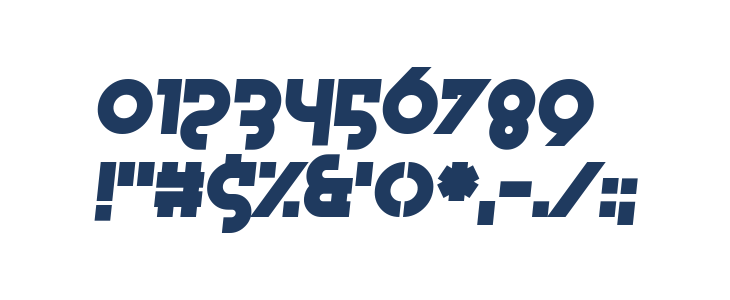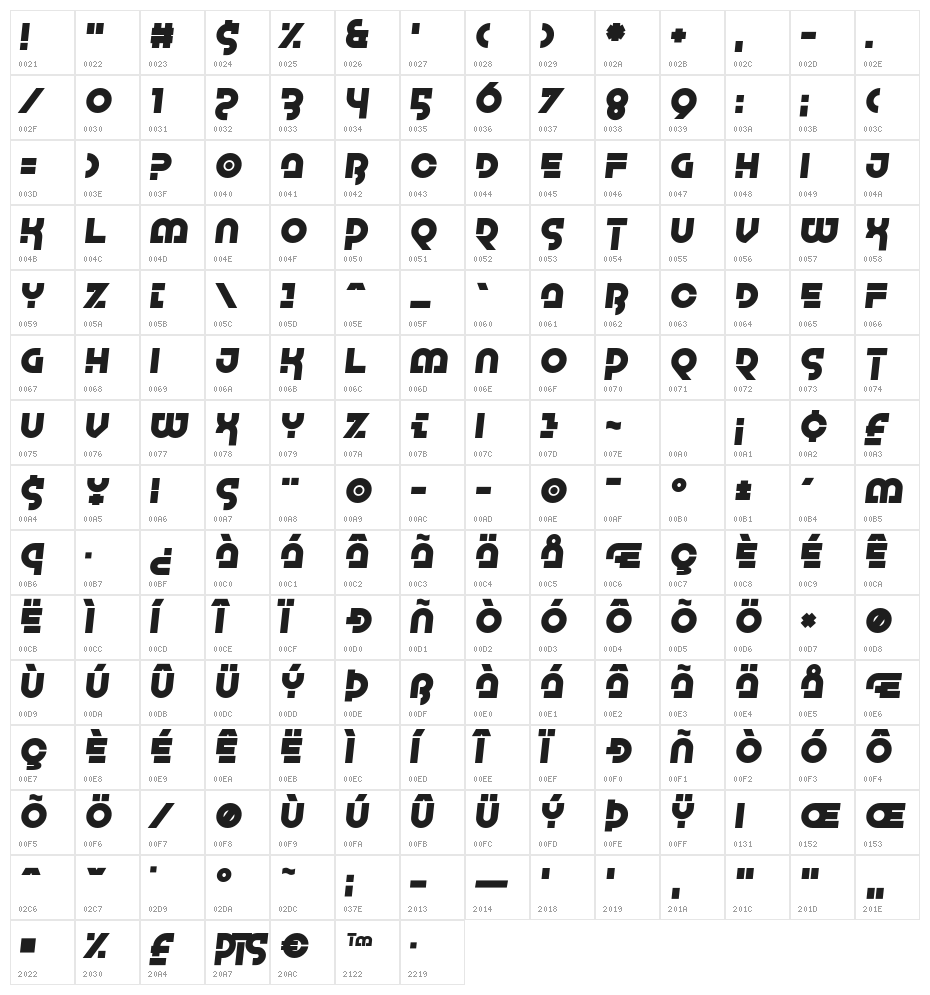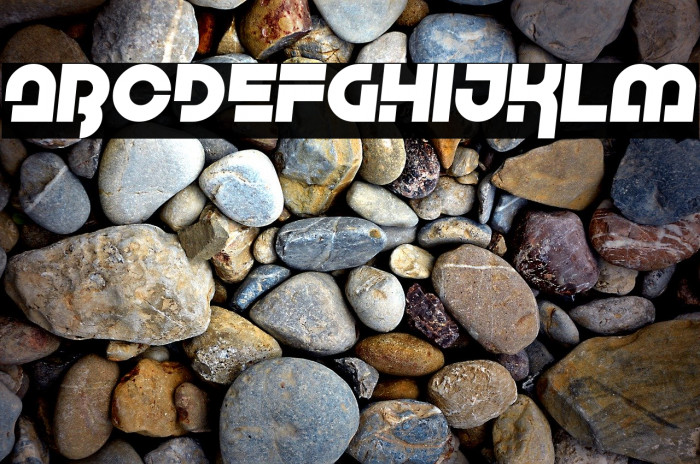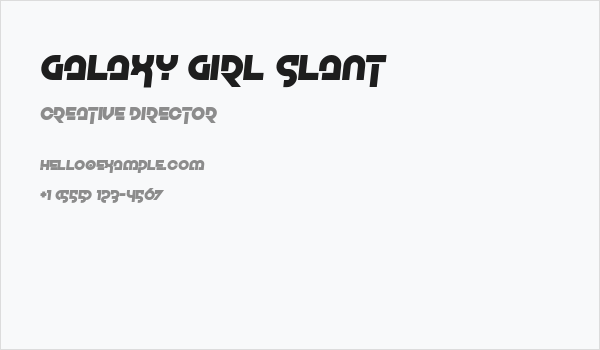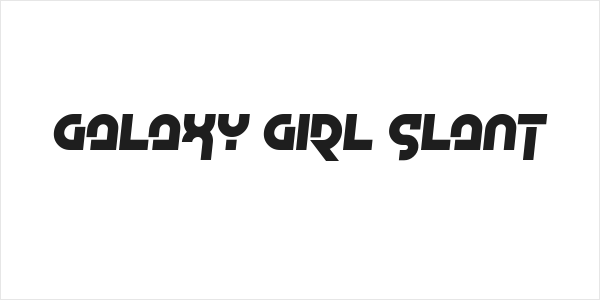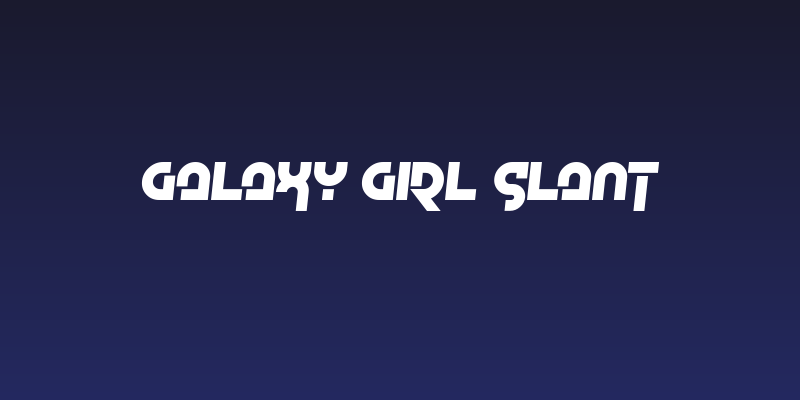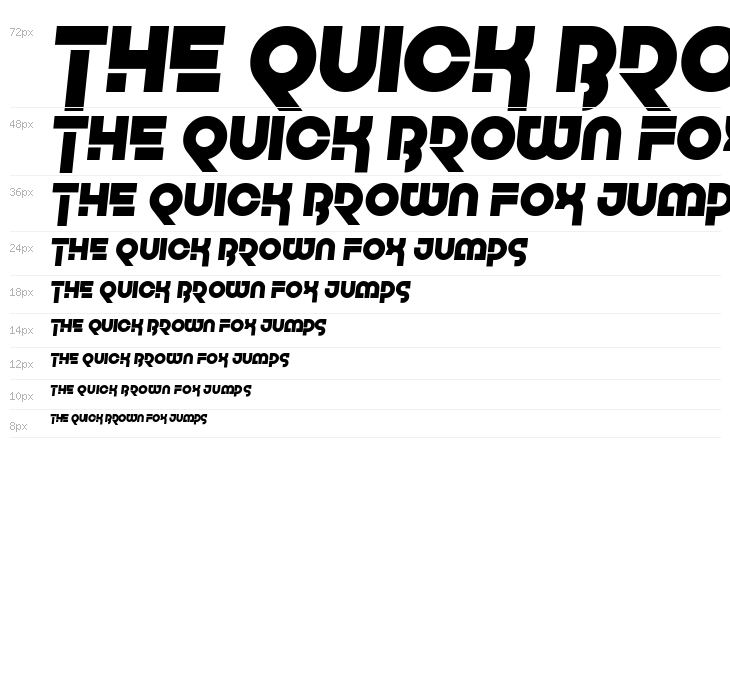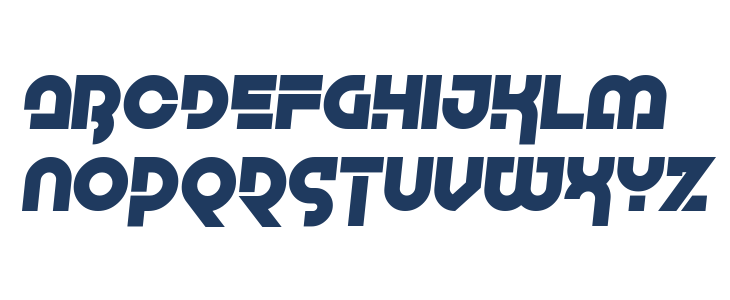
Galaxy Girl Slant Font
Galaxy Girl Slant Description
This font features a bold, futuristic design with a distinct slant, giving it a dynamic and energetic appearance. The characters are crafted with geometric precision, incorporating sharp angles and clean lines that contribute to its modern aesthetic. The uppercase and lowercase letters maintain a consistent style, ensuring readability while adding a unique flair. Numbers and special characters are designed to match the overall theme, making them suitable for a variety of creative applications. The font's bold weight and condensed width enhance its impact, making it ideal for attention-grabbing headlines and logos.
| Proposed Projects | Ideal for sci-fi themed projects, tech branding, video game titles, and modern advertising. |